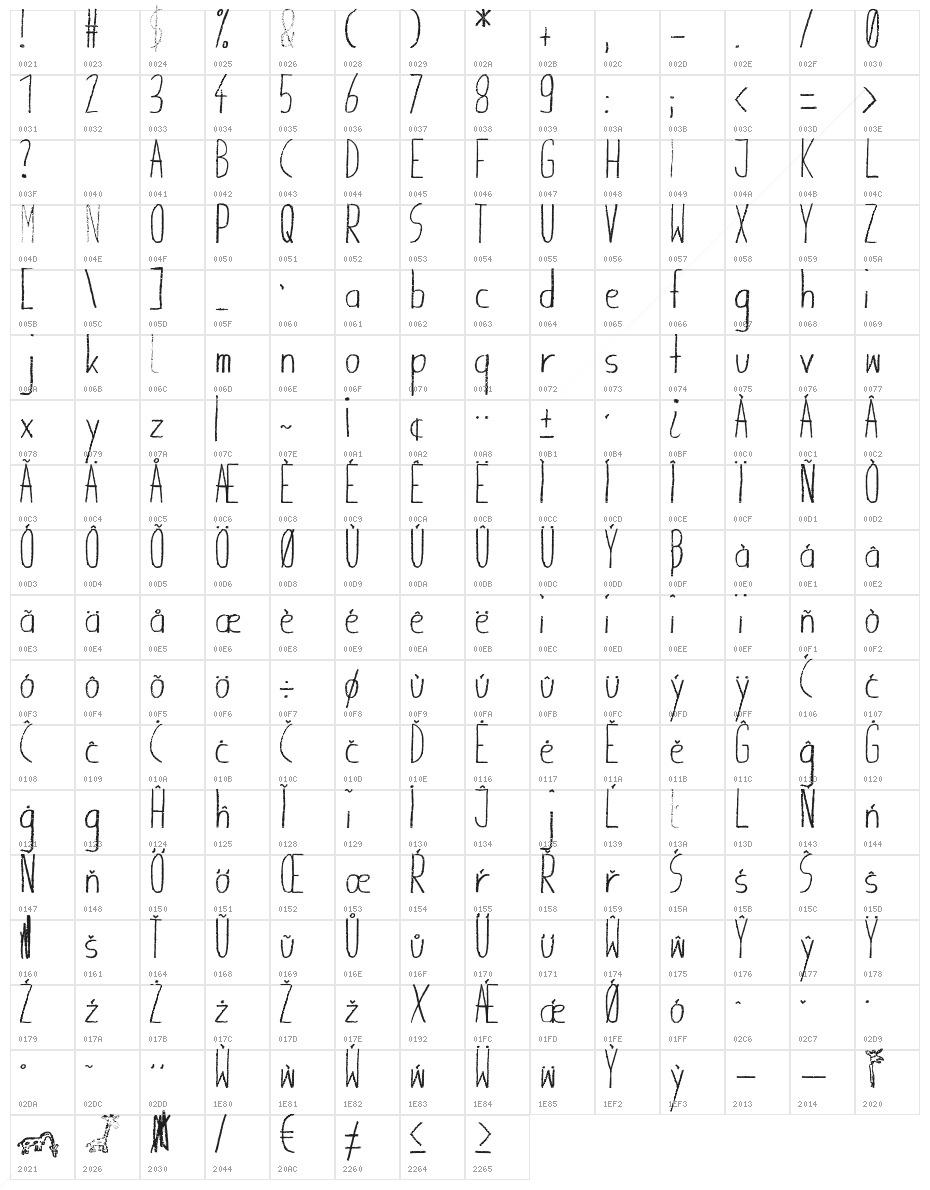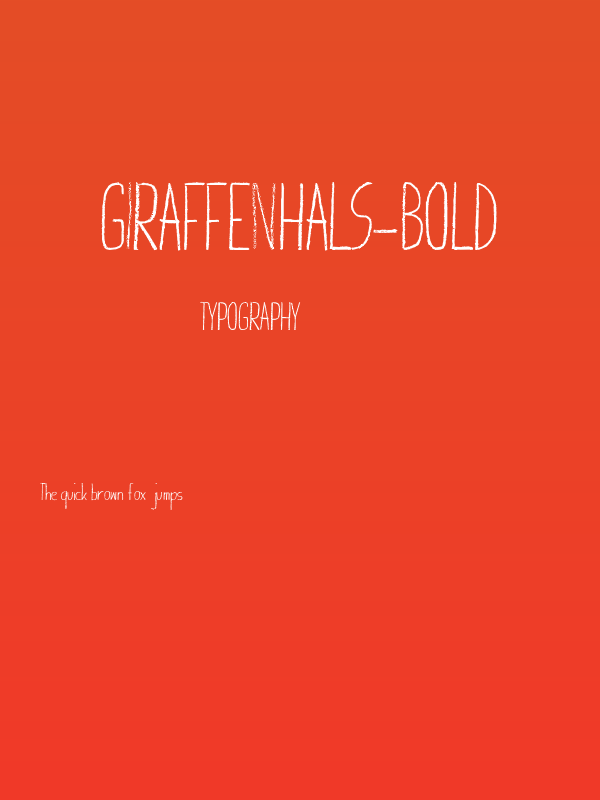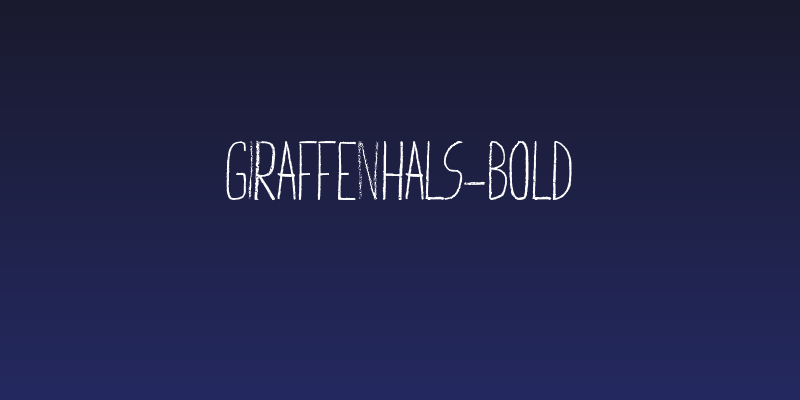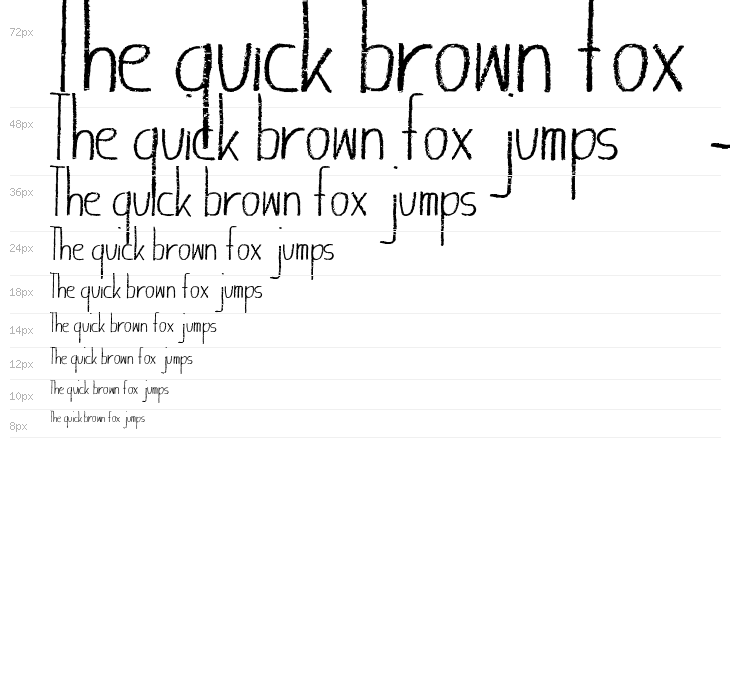
Giraffenhals-Bold Font
Giraffenhals-Bold Description
This font features a unique and playful design with elongated, narrow characters that give it a distinctive, quirky appearance. The strokes are uneven, adding a hand-drawn, artistic feel. The uppercase letters are particularly tall and slender, while the lowercase letters maintain a consistent style, enhancing the font's cohesive look. Numbers and special characters follow the same elongated style, ensuring uniformity across all elements. The overall design is both eye-catching and whimsical, making it suitable for creative projects that require a touch of individuality.
| Overall Style | Whimsical, Artistic |
| Proposed Projects | Ideal for children's books, creative posters, artistic branding, and unique invitations. |